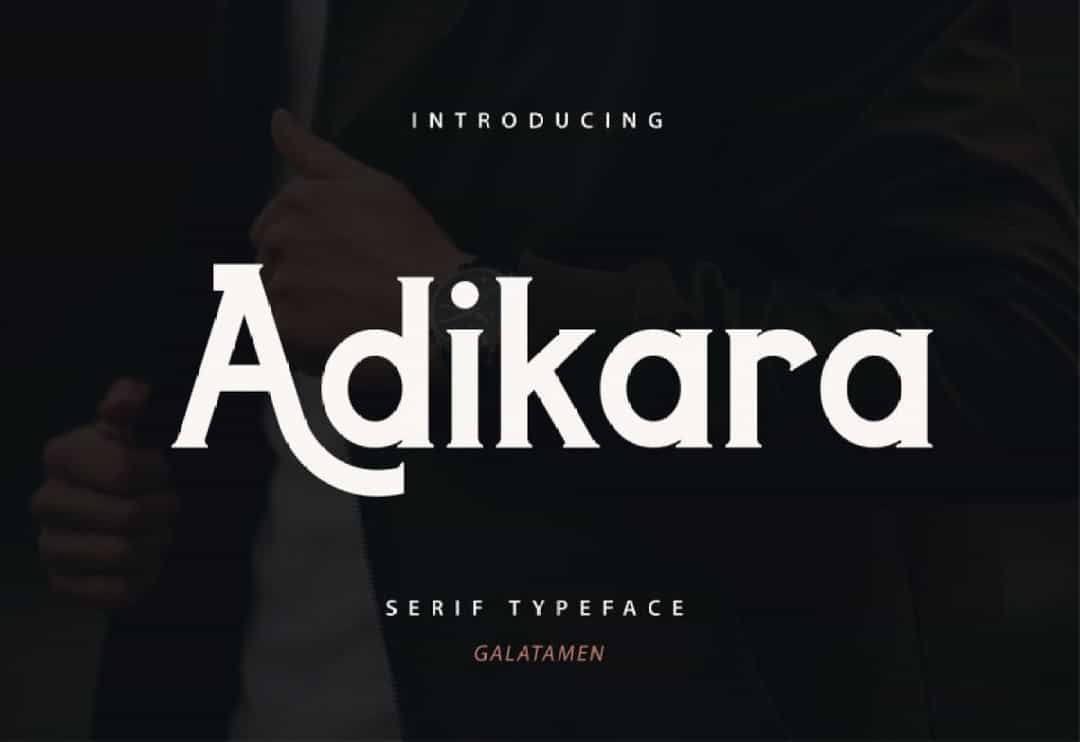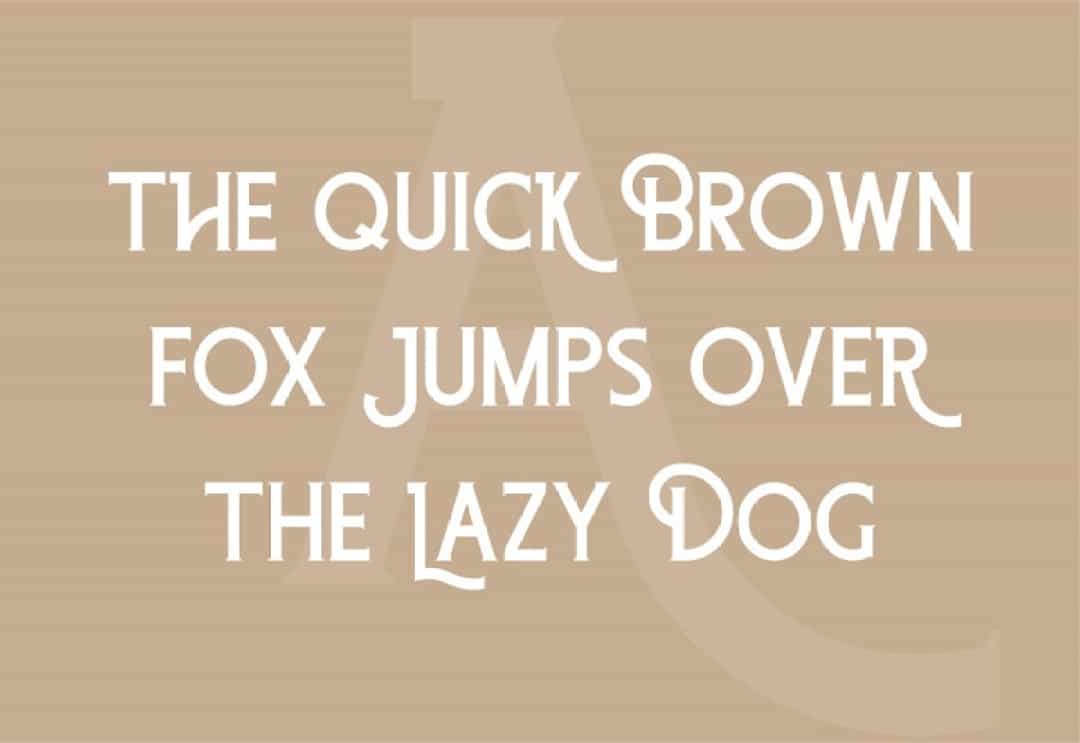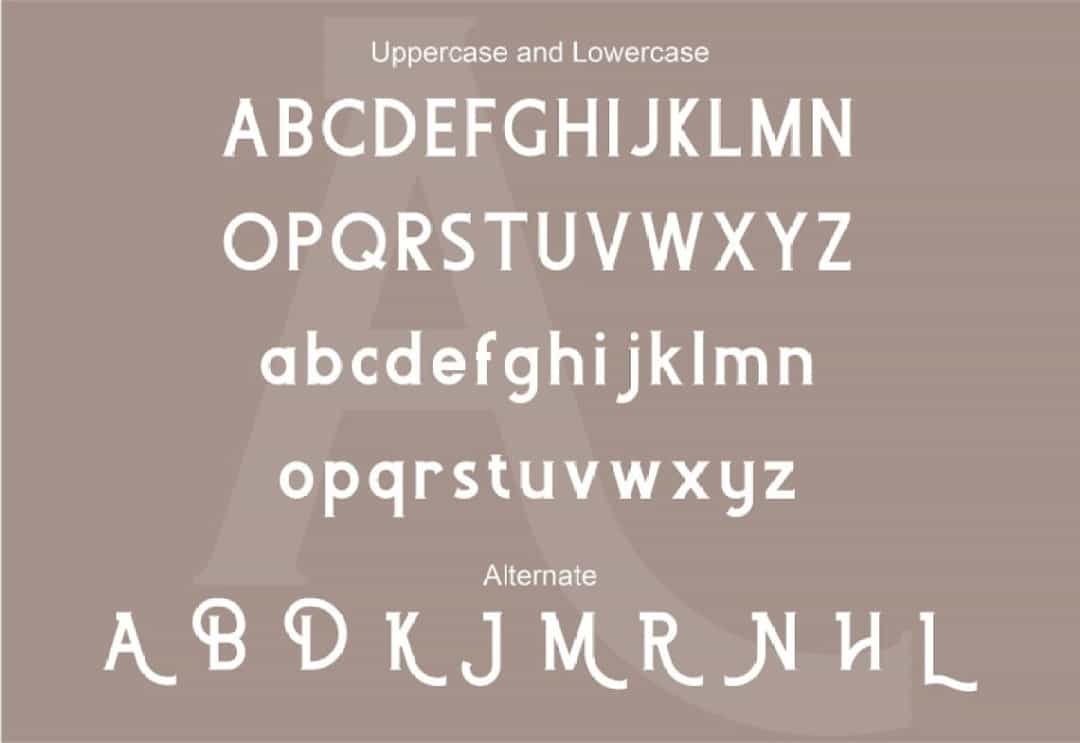
Adikara is a sleek and sophisticated serif typeface designed with care to be an absolutely beloved font – one that can bring any of your ideas to the forefront! Useful as badges, logo packages, insignia and headlines; posters; T-shirt; greeting card or wedding card etc.